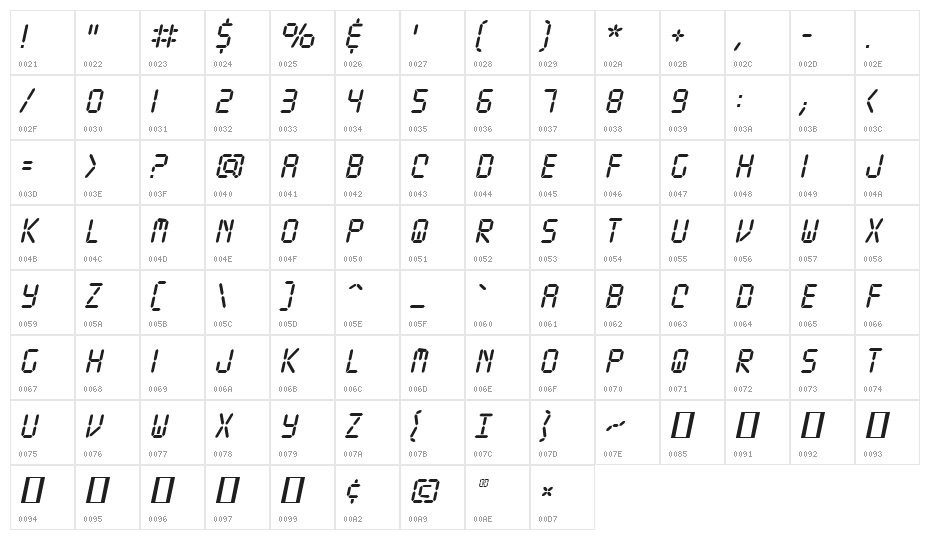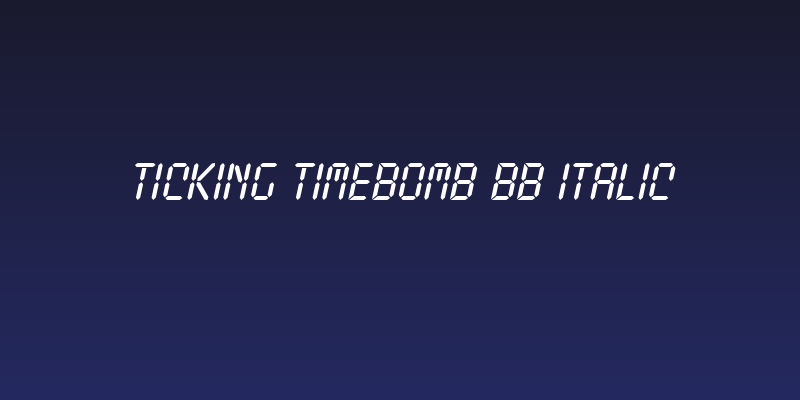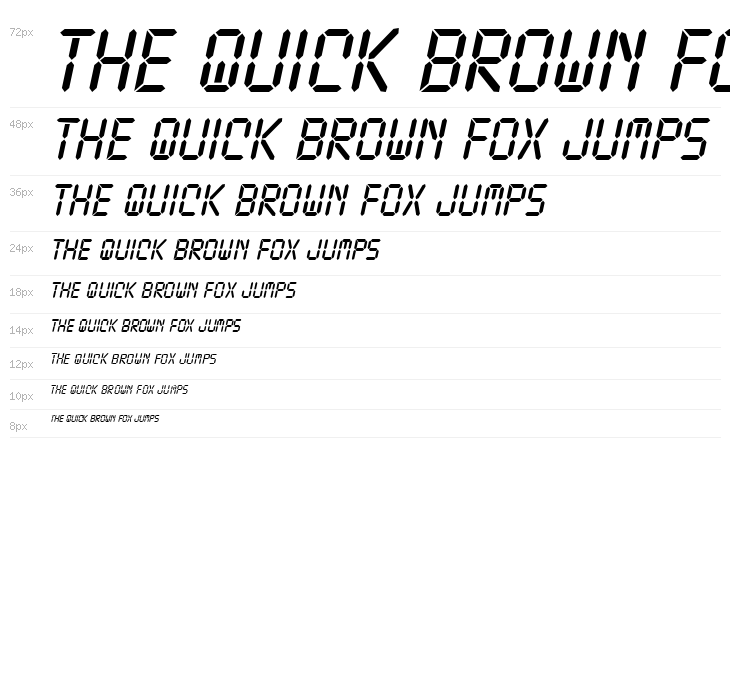
Ticking Timebomb BB Italic Font
Ticking Timebomb BB Italic Description
This font features a digital, segmented style reminiscent of LED displays or digital clocks. Each character is composed of angular, geometric segments that create a futuristic and technical appearance. The italic slant adds a dynamic and forward-moving feel, enhancing its modern aesthetic. The uppercase and lowercase letters maintain a consistent design, with numerals and special characters following the same segmented pattern. This font's unique style makes it stand out, ideal for projects that require a digital or technological theme.
| Proposed Projects | Ideal for digital interfaces, tech-themed posters, video game graphics, and futuristic branding. |